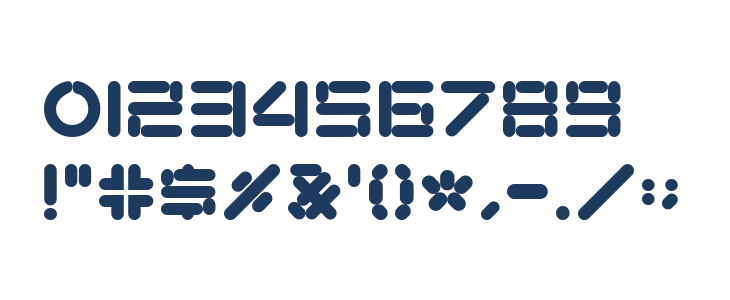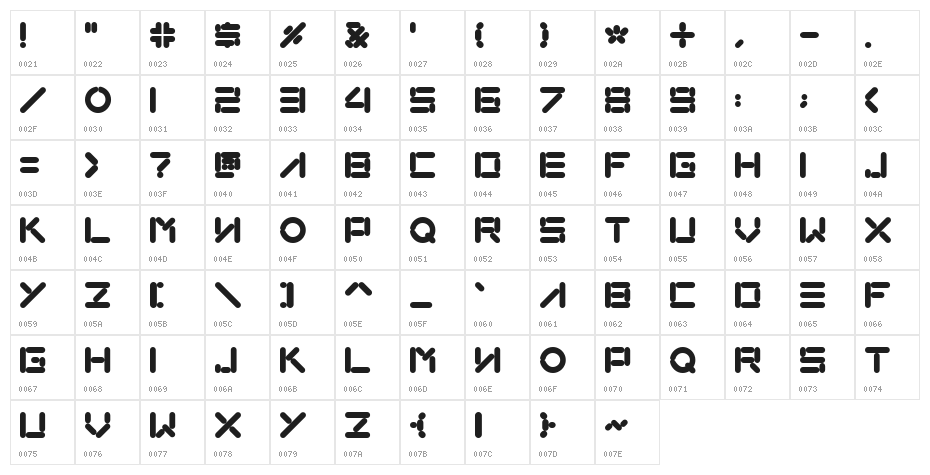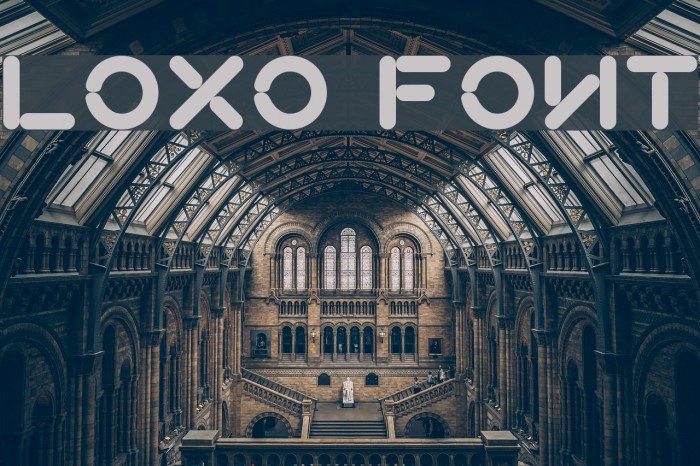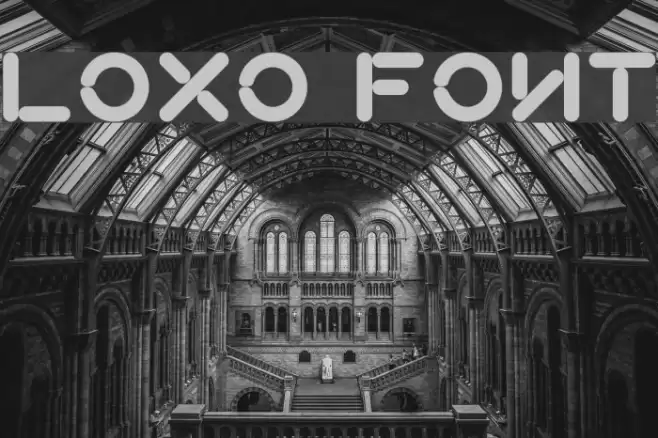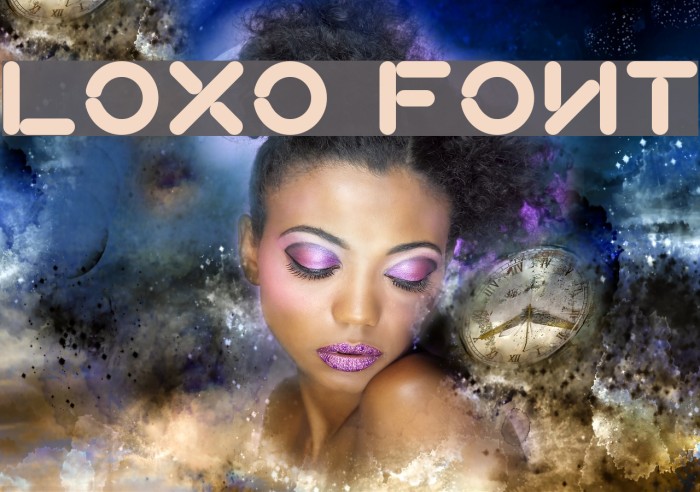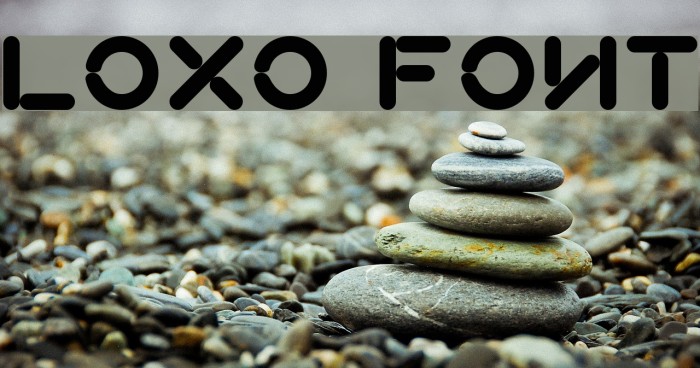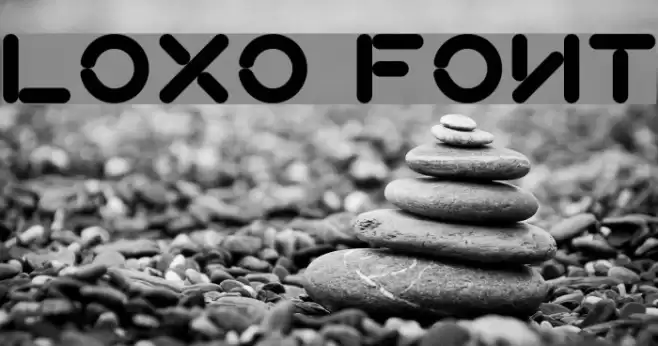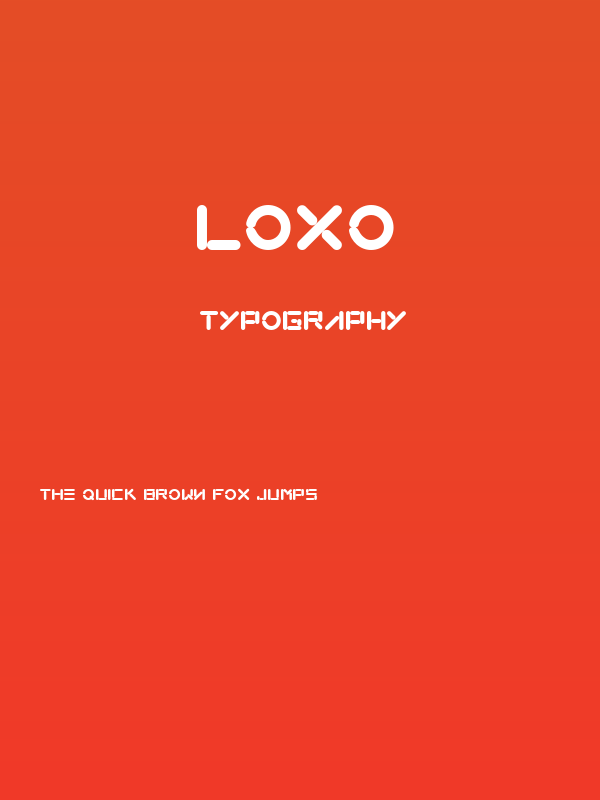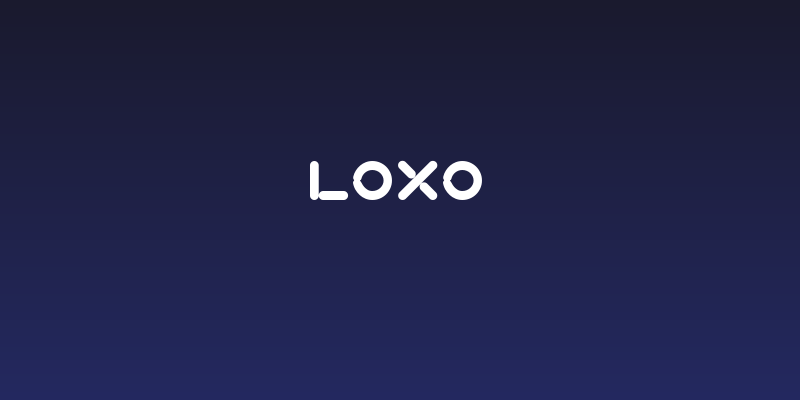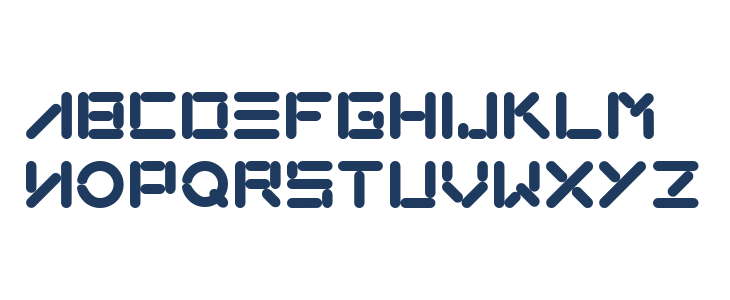
LOXO Font
LOXO Description
This font features a futuristic and geometric design, characterized by its bold and rounded shapes. Each letter and number is composed of thick, uniform strokes that create a sense of cohesion and modernity. The characters have a distinct digital or sci-fi aesthetic, making them stand out with their unique structure. The use of rounded edges and consistent stroke width gives the font a smooth and polished appearance. It is highly legible and maintains a strong visual presence, suitable for various design applications that require a contemporary and eye-catching typeface.
Proposed ProjectsIdeal for tech-related branding, video game titles, futuristic posters, and digital interfaces.